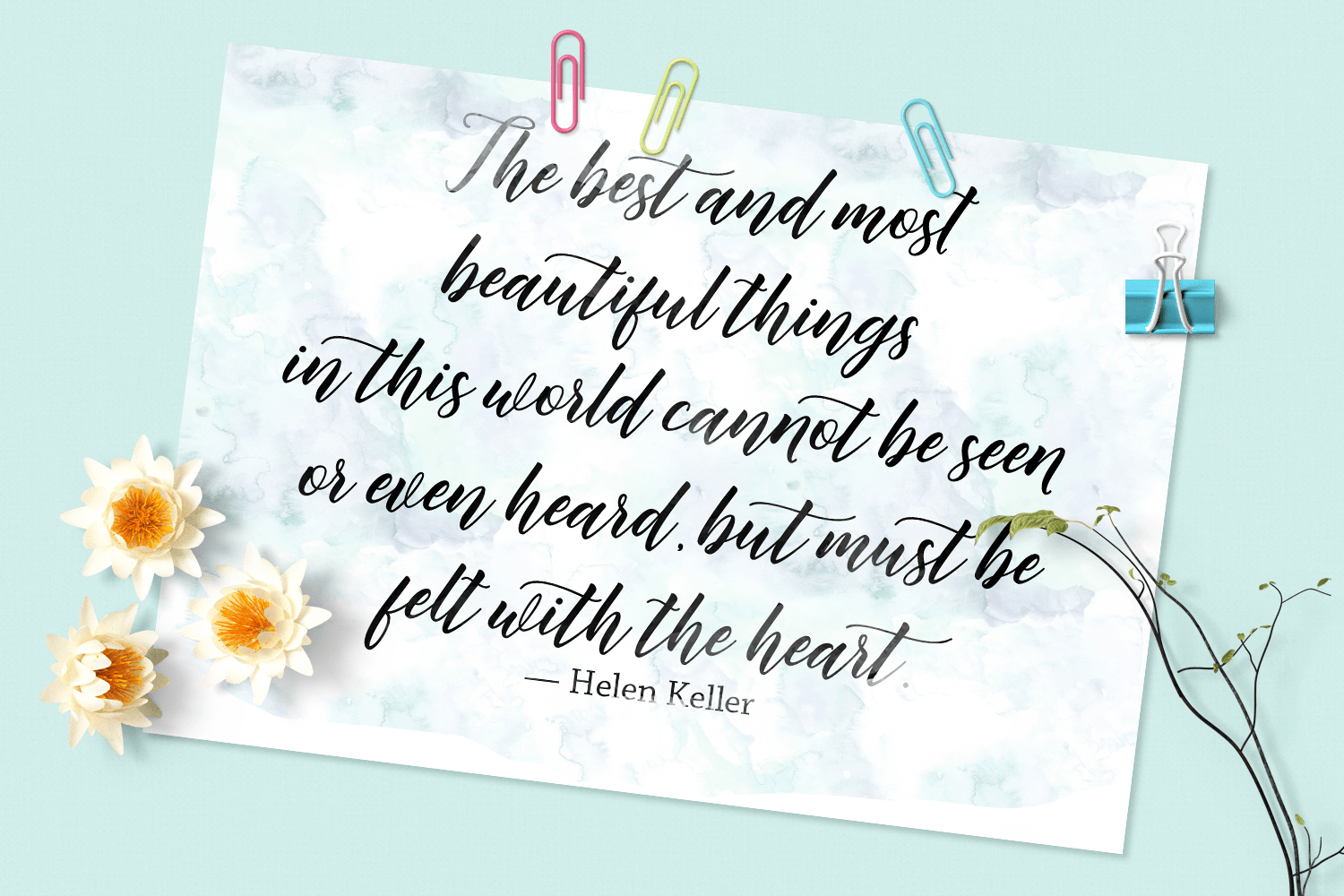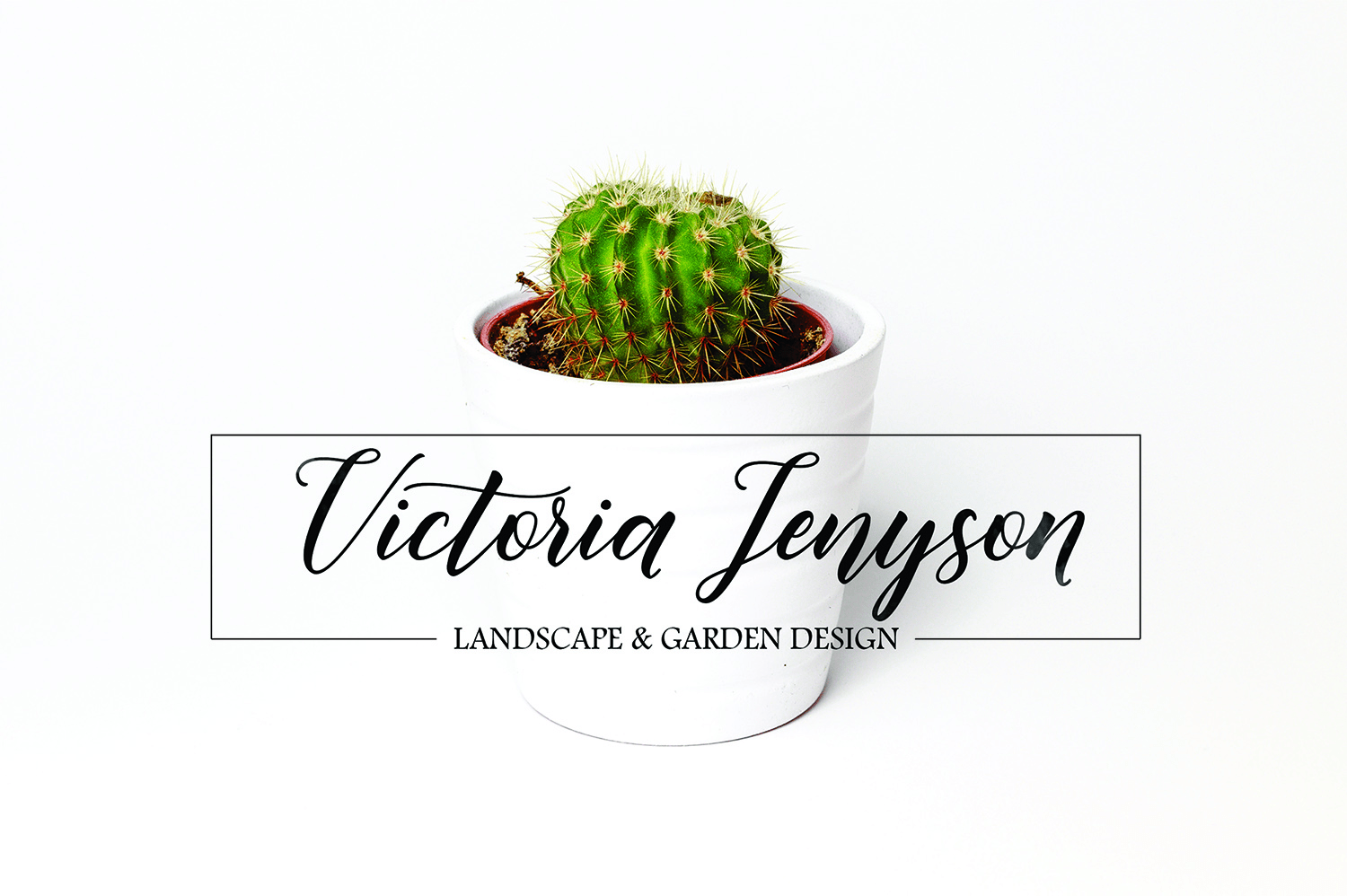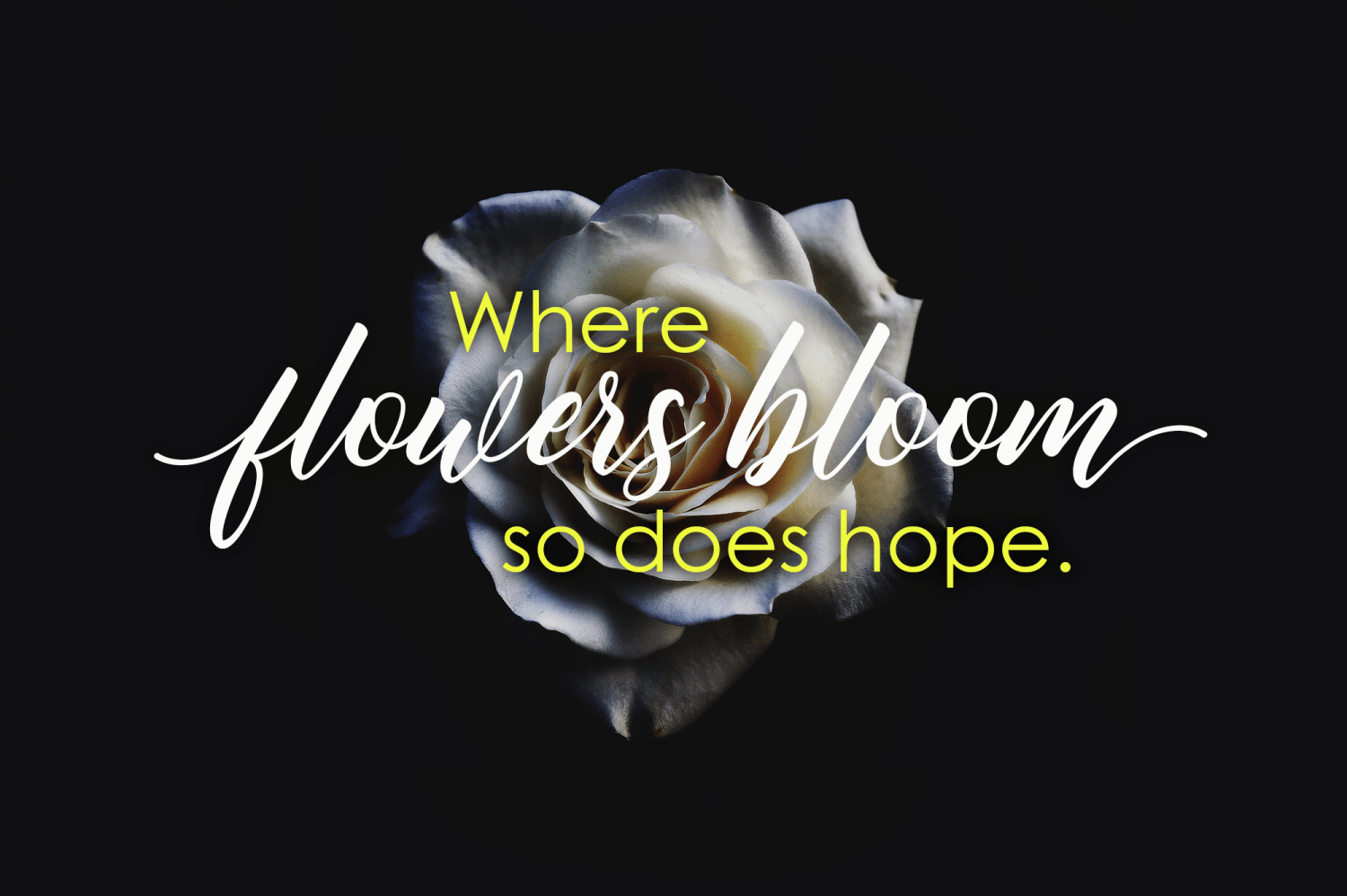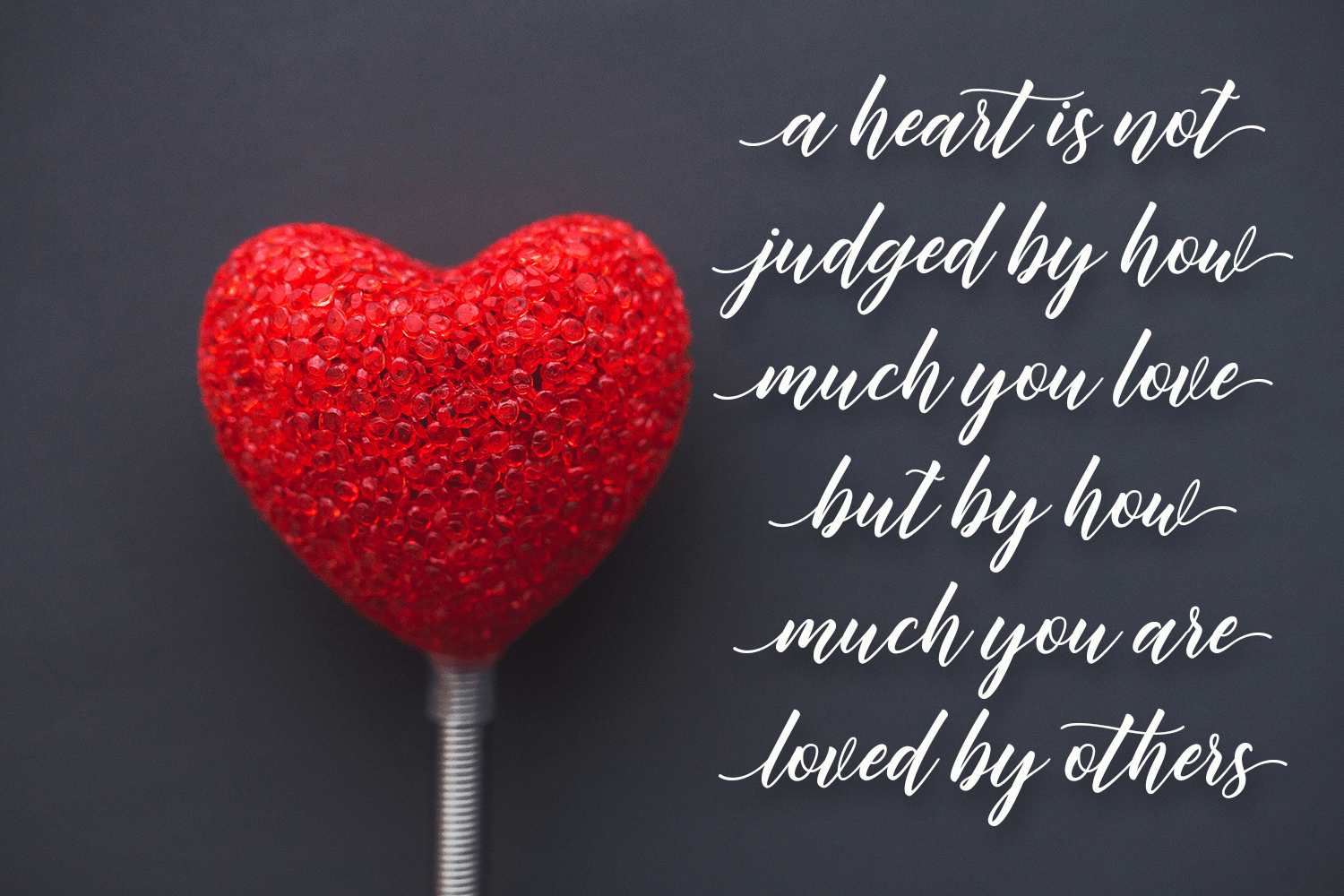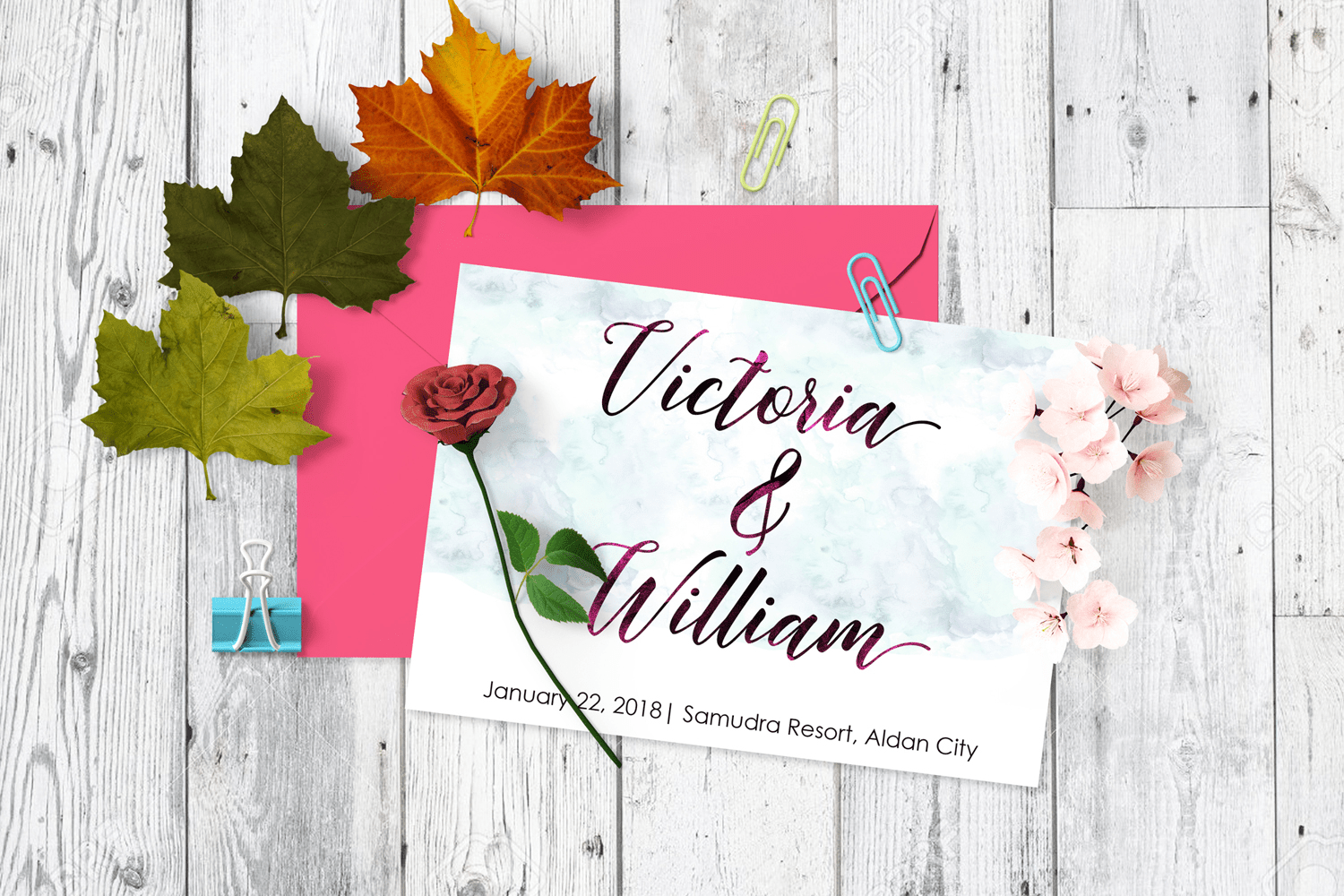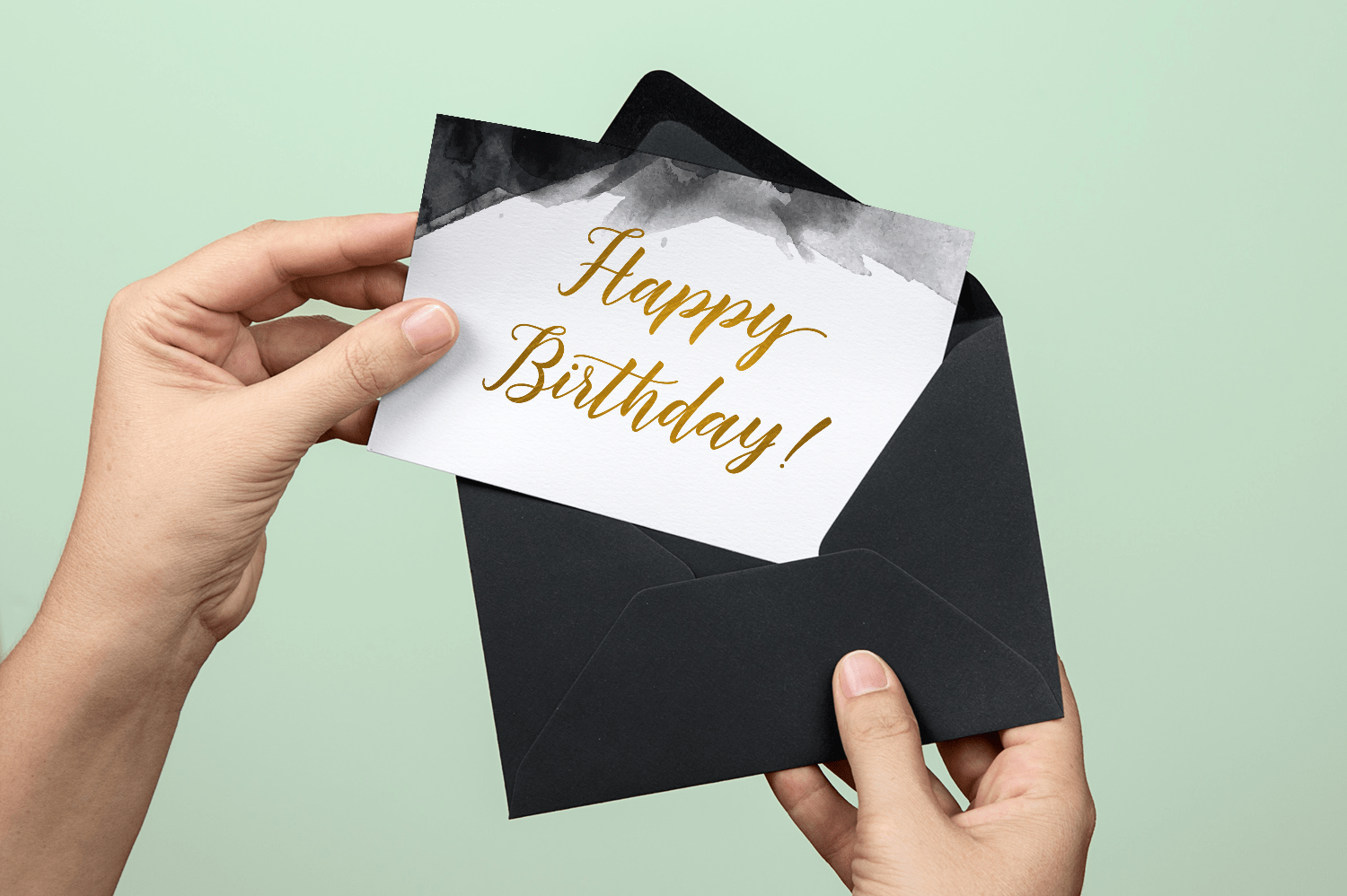
Butterflies Script
About Butterflies Script
Butterflies Script – a new fresh & modern script with a handmade calligraphy style, decorative characters and a dancing baseline! So beautiful on invitation like greeting cards, branding materials, business cards, quotes, posters, and more design concept!…